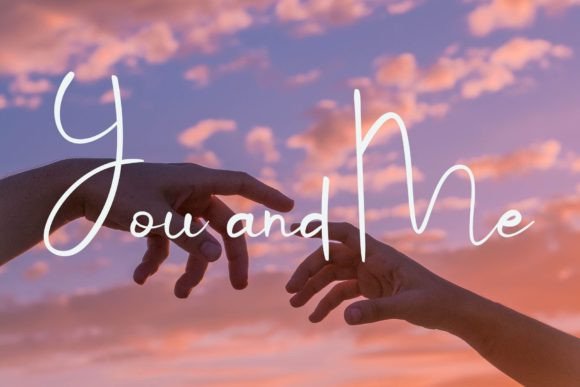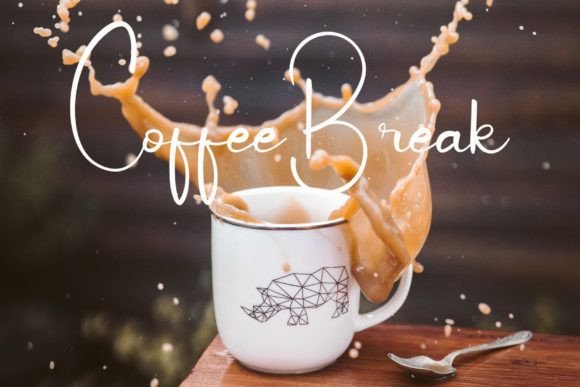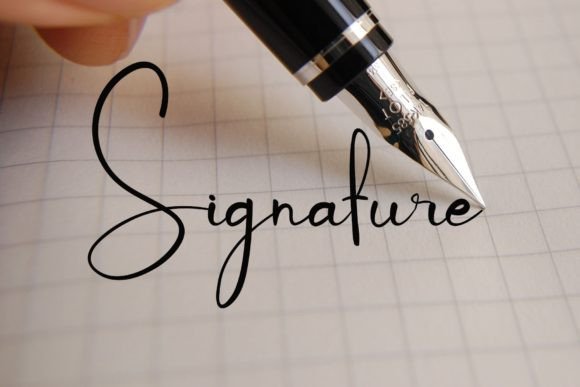
Stay Alone Font
About Stay Alone Font
Stay Alone is not just a font; it’s a spellbinding creation meticulously crafted with a touch of elegance and magic. This script font exudes an aura of enchantment, making it a perfect choice for a wide array of creative projects. Whether you’re searching for fonts to enhance your Instagram posts or elegant calligraphy scripts for DIY projects, Stay Alone has the power to transform any creative idea into a true masterpiece of artistry.
Imagine Stay Alone gracing your Instagram feed. Its magical and elegant characters create an instant visual allure, capturing the attention of viewers and adding a touch of sophistication to your posts. Whether you’re sharing inspirational quotes, showcasing products, or posting personal updates, Stay Alone turns your Instagram content into captivating visual stories, leaving a lasting impression on your followers.
In DIY projects, Stay Alone works its magic effortlessly. Its elegant and fluid strokes add a sense of grace to handwritten invitations, greeting cards, or personalized gifts. Whether you’re crafting wedding stationery, designing party invitations, or creating heartfelt notes, this font elevates your projects, making them truly unique and enchanting. Stay Alone’s artistic charm transforms ordinary materials into extraordinary creations, reflecting your creativity and attention to detail.
Stay Alone is also perfect for branding and logo design. Imagine it gracing a high-end fashion brand’s logo or a luxury product packaging. Its magical touch adds a sense of exclusivity and allure, making the brand memorable and captivating. In the world of business cards and promotional materials, Stay Alone adds a touch of elegance, leaving a lasting impression on clients and customers.
Moreover, Stay Alone’s versatility shines in various design applications. Whether you’re working on event posters, website headers, or social media graphics, its elegant and magical script enhances the overall visual appeal, creating a sense of wonder and fascination. The font’s ability to seamlessly blend elegance with creativity makes it a valuable asset for designers seeking to add a touch of magic to their projects.
In summary, Stay Alone is more than just a font; it’s a gateway to a magical world of creativity and elegance. Its enchanting and sophisticated script turns ordinary designs into extraordinary pieces of art, leaving a sense of wonder in the hearts of those who experience them. So, embrace the magic of Stay Alone and let it transform your creative ideas into enchanting masterpieces, leaving a lasting impression on anyone who encounters them.